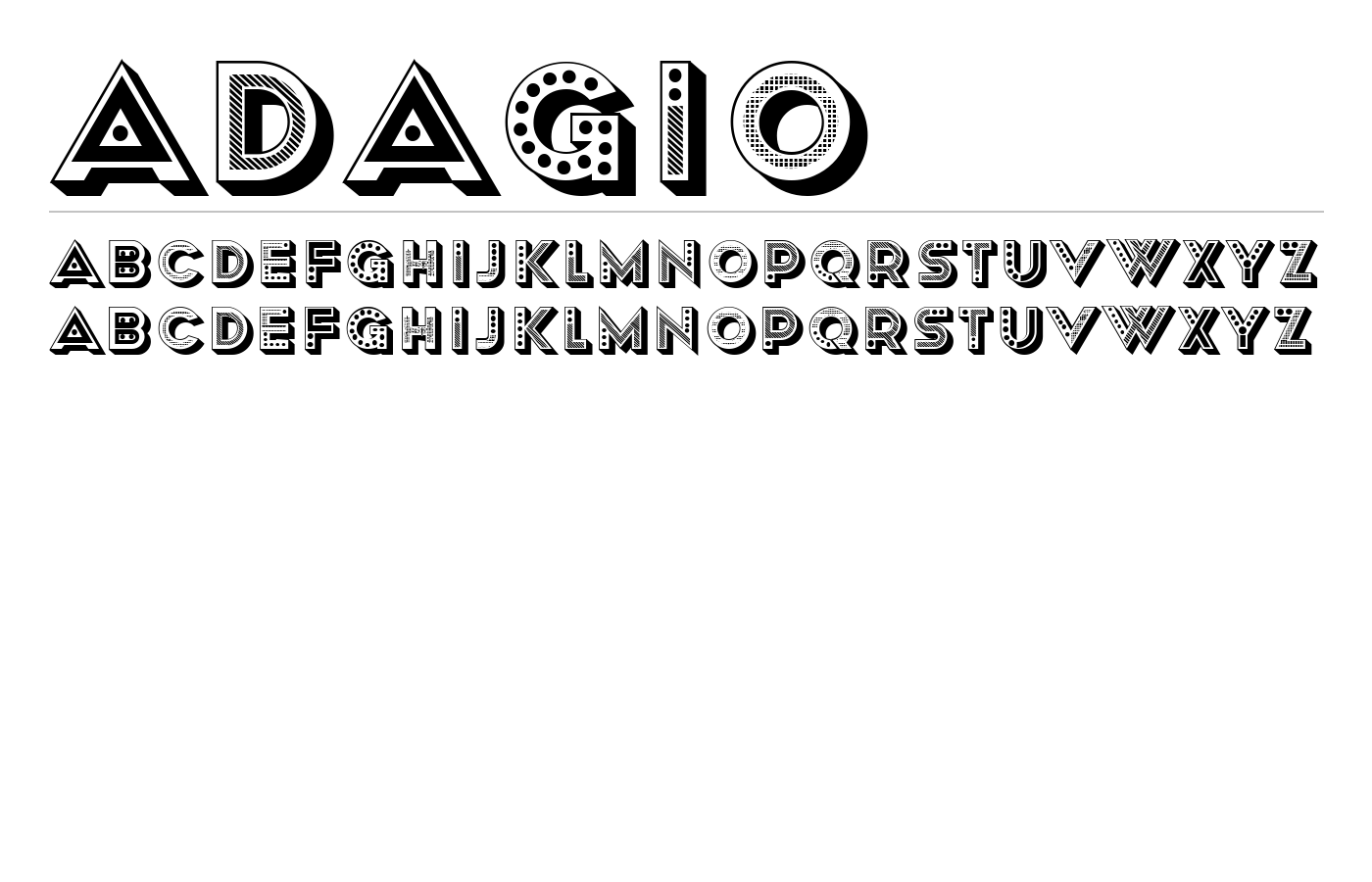
Adagio is a bold, decorative sans serif font that combines playful geometric patterns with solid, three-dimensional shading for a striking visual effect. Its uppercase-only design features varied textures and stylized fills that give it a vintage yet dynamic personality, making it ideal for eye-catching headlines, posters, and branding that seeks a retro, artistic flair. This font works best in display use where its unique character and strong presence can truly stand out.
Adagio Font
About Adagio Font
| Font family | Adagio Font |